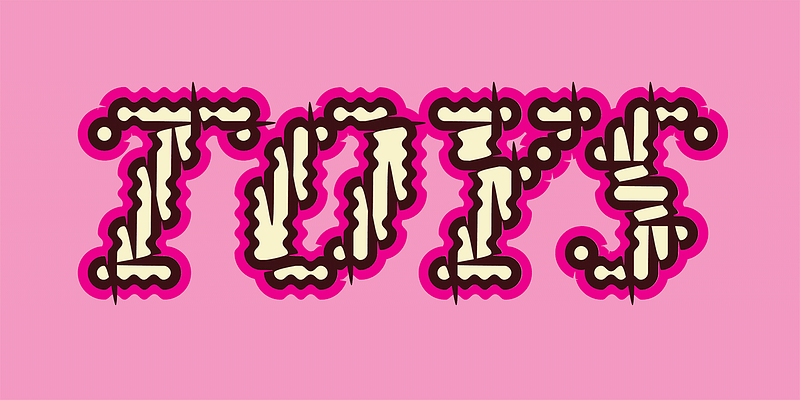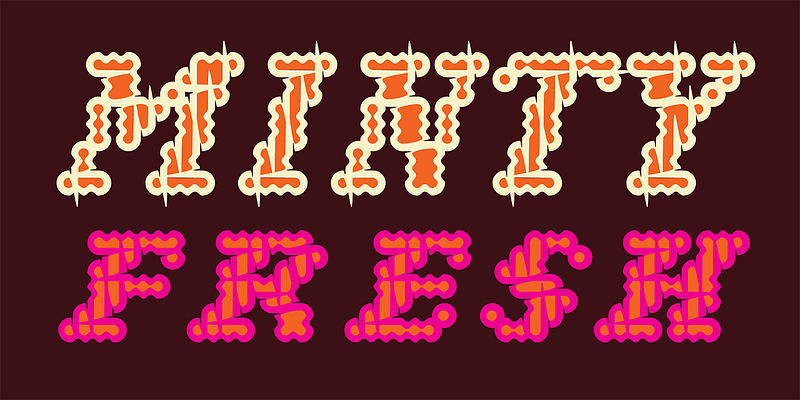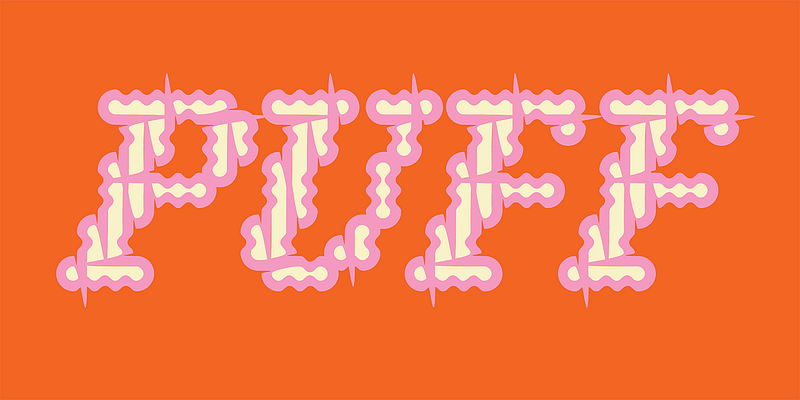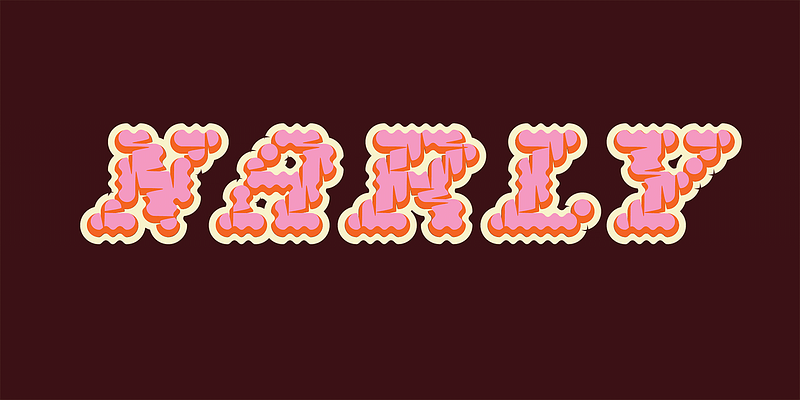
Narly embraces the relative sophistication of yesterday’s computer technology. Licko’s early typeface designs such as Emperor and Modula were reductivist, largely due to the crudeness of the Macintosh technology of the mid 80s with which they were created. A decade later, with a slightly more sophisticated Mac, she was able to create increasingly intricate designs. Always keen to let the technology inspire and steer her designs, Licko created Narly as an experiment with modularity, repetition and chance.
The underlying structure of Narly was built from overlapping circular dots, that were fused and outlined in various ways to form five different mutations. The five companion fonts can be used in combination to create multicolored and multilayered typographic creations for use as drop caps or word logos.